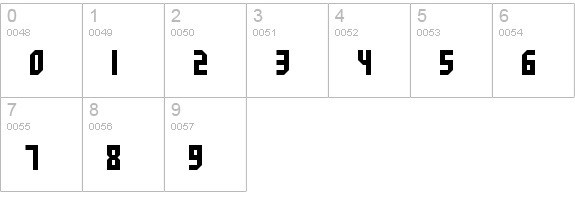
Space Crusader Font Details
Space Crusader is a free for personal use font in the Modern > Sci-Fi category, designed by Darrell Flood. It has been downloaded 171 times and is available for Windows, Mac and Linux.
Space Crusader font is a futuristic and bold typeface that exudes a sense of adventure and exploration. Its sharp edges and sleek lines give it a modern and space-age aesthetic, perfect for projects that require a touch of sci-fi flair. Whether you are designing a poster for a futuristic event or creating a logo for a tech startup, Space Crusader font will help you stand out from the crowd.